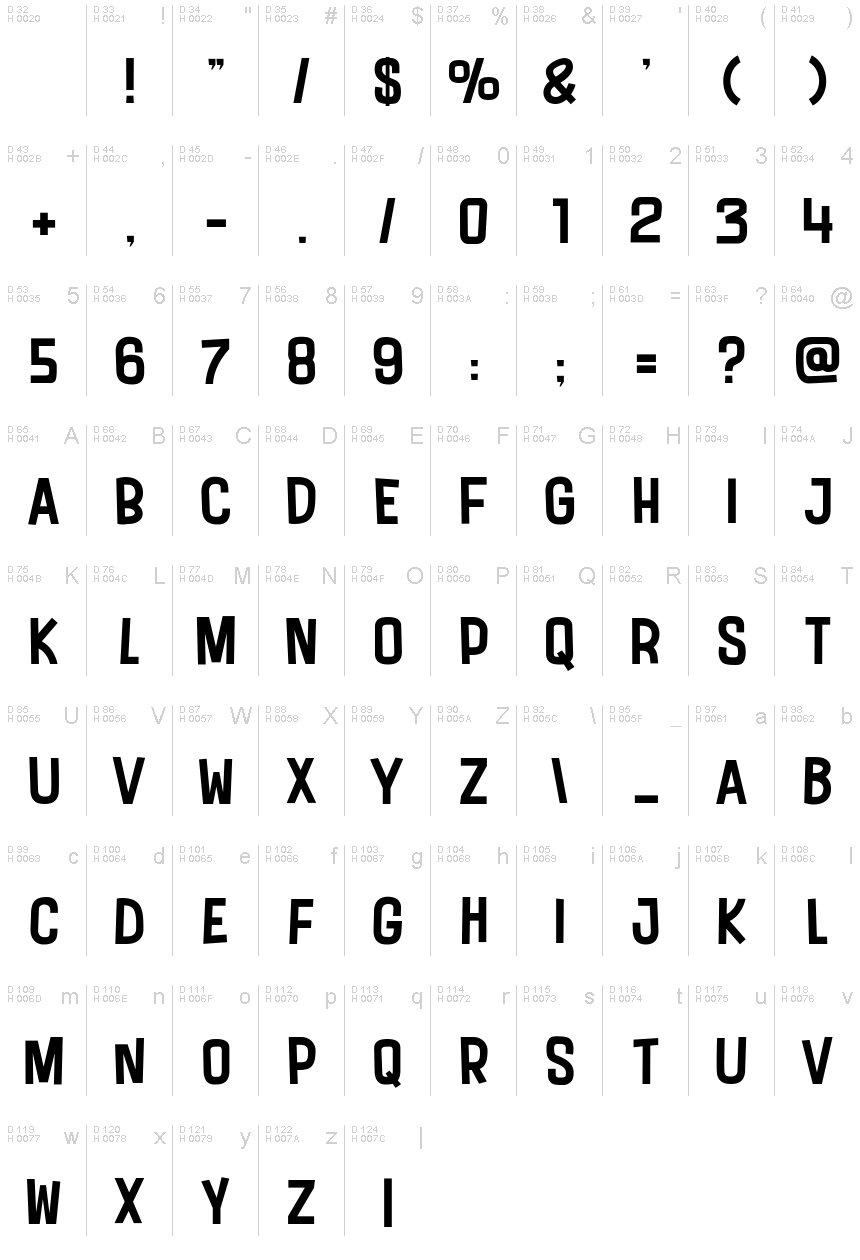
Bread Mate
Bread Mate, a captivating display font crafted by Khurasan, exudes a whimsical charm with its playful, cartoon-inspired aesthetic. The bold, expressive letterforms boast distinct edges and a touch of playfulness, lending an engaging and dynamic quality to any design. This versatile font effortlessly captures attention, making it a compelling choice for creative projects ranging from branding and packaging to editorial and advertising applications.
Bread Mate's unique character shines through its distinctive shapes and strokes, seamlessly blending playfulness and sophistication. Its versatility allows designers to elevate a wide array of projects, from vibrant event posters to eye-catching product labels. Whether you're crafting a captivating logo, designing an engaging social media campaign, or seeking to infuse a touch of personality into your next editorial spread, Bread Mate by Khurasan is a font that will undoubtedly captivate and inspire.